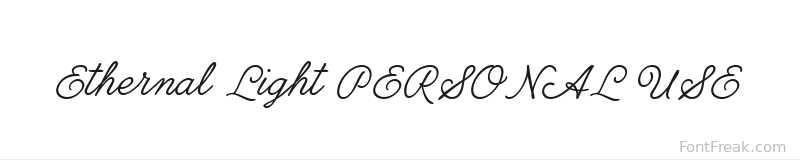
Ethernal Light PERSONAL USE
Ethernal Bold PERSONAL USE
Ethernal Light PERSONAL USE by Mans Greback is a beautifully crafted script font that embodies elegance and sophistication. This font features a fluid and graceful design, characterized by its thin stroke weight and subtle contrast, which results in a delicate appearance. The letters are well-spaced, enhancing readability while maintaining a charming, handwritten quality. Decorative elements, such as gentle curves and flourishes, give the font a unique personality, making it an excellent choice for various creative projects.
This font shines in specific use cases, including wedding invitations, where its romantic aesthetic can elevate the overall design. It’s also perfect for greeting cards, adding a personal touch to heartfelt messages. Additionally, Ethernal Light can be utilized effectively in fashion branding or lookbooks, lending a stylish flair that attracts attention. Restaurant menus can benefit from this font as well, particularly in upscale establishments aiming for a refined ambiance. Lastly, content creators looking to enhance their social media graphics will find this font suitable for eye-catching posts and stories.
What sets this font apart is its seamless blend of modern and classic script elements, allowing it to adapt to various design styles while retaining its distinctive identity. Whether you're working on personal projects or client designs, Ethernal Light offers a versatile and appealing solution that will leave a lasting impression. Its charm and sophistication make it a must-have in any designer's font collection.